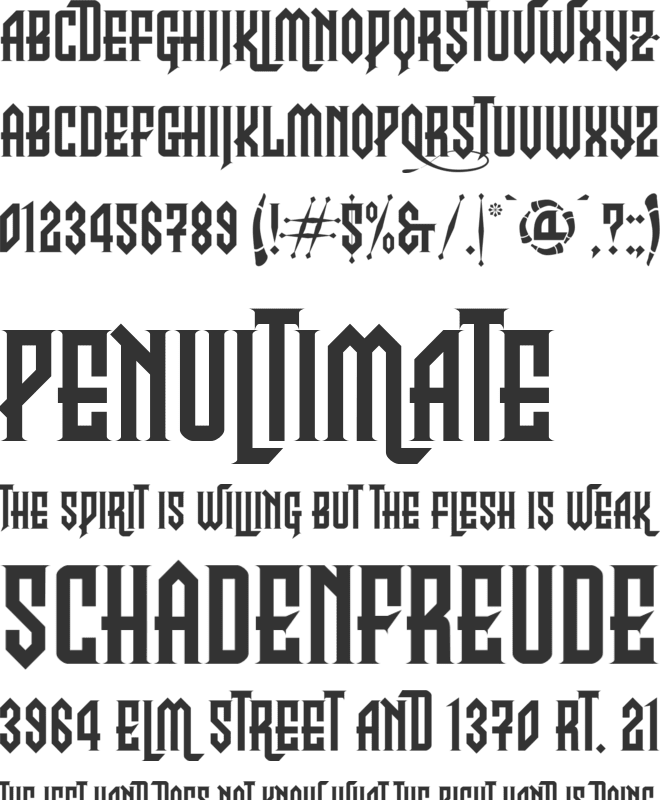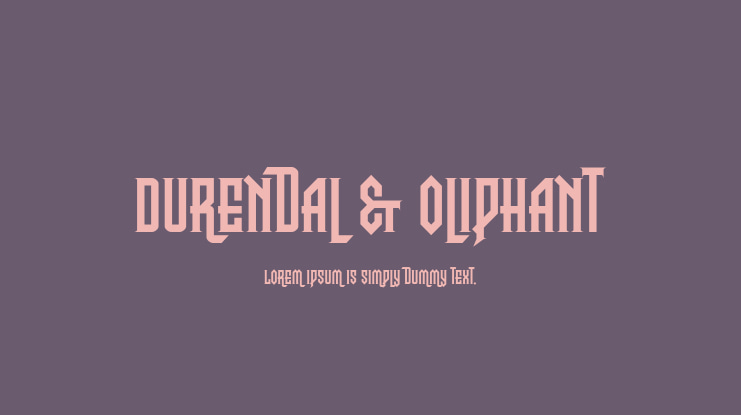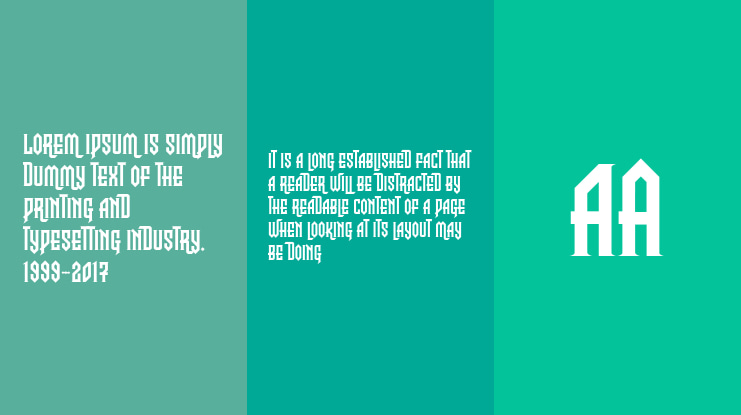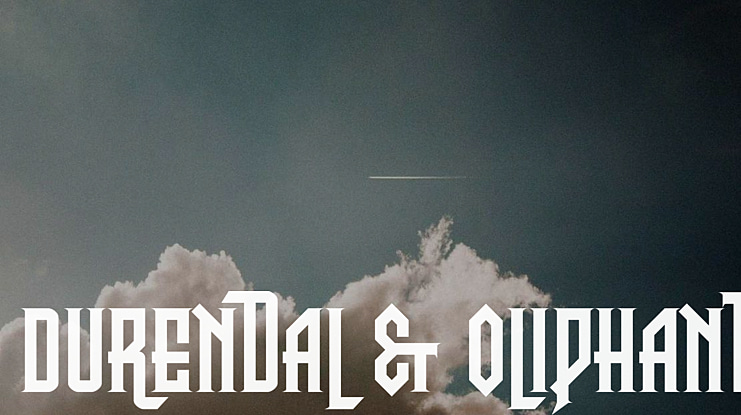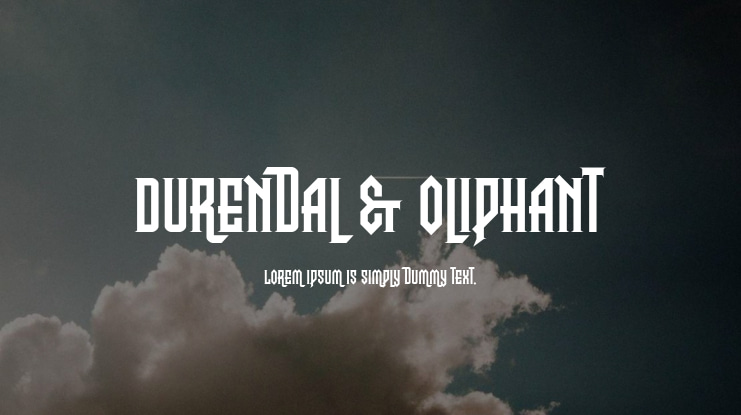
I started out making a font with a medieval feel, but its ridiculously small serifs reminded me of the typefaces used at the end of the 19th century. Doesn't matter anyways. Lots of ligatures and variations, and lots of languages covered. Only caps though.